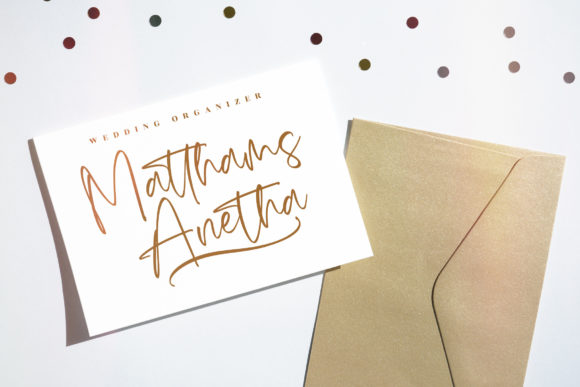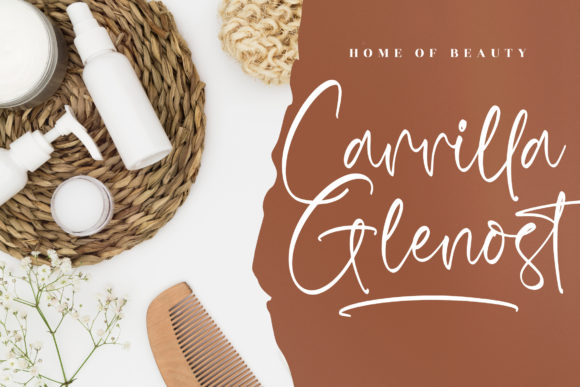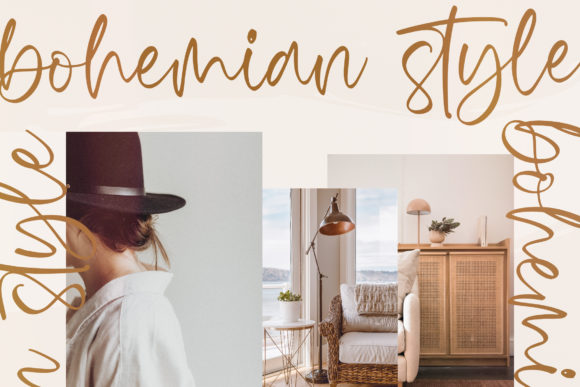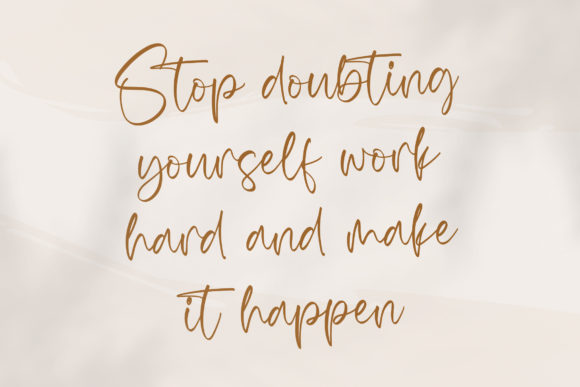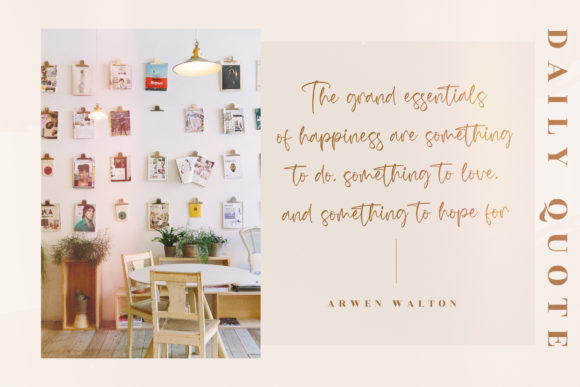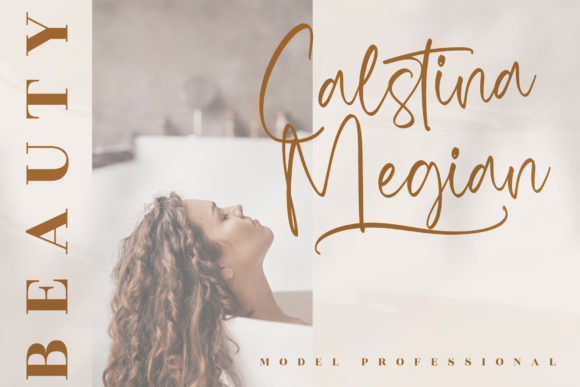
Introducing Camilla Mosteland Font: A Romantic and Sweet Calligraphy Typeface
Are you looking for a font that can add a touch of luxury and elegance to your design projects? Look no further than the Camilla Mosteland Font! This beautiful calligraphy typeface is perfect for designers and crafters who want to create stunning visuals that exude romance and sophistication.
What Makes Camilla Mosteland Font Special?
Camilla Mosteland Font is a romantic and sweet calligraphy typeface that features characters that dance along the baseline. This unique design element gives the font a playful and whimsical feel, making it perfect for a variety of design projects, from wedding invitations and branding materials to packaging and advertising.
One of the standout features of Camilla Mosteland Font is its PUA (Private Use Area) encoding. This means that you can access all of the amazing glyphs and ligatures with ease, giving you a wide range of creative possibilities. Whether you’re looking to add a touch of elegance to a logo or create a beautiful piece of typography, Camilla Mosteland Font has got you covered.
Perfect for Luxury Design Projects
Camilla Mosteland Font is the perfect choice for designers and crafters who want to add a touch of luxury to their design projects. The font’s elegant and refined design makes it ideal for high-end branding, packaging, and advertising. Whether you’re working on a luxury fashion brand, a high-end restaurant, or a bespoke jewelry company, Camilla Mosteland Font is sure to impress.
The font’s romantic and sweet feel also makes it perfect for wedding and event designers. Imagine creating beautiful wedding invitations, programs, and signage with this stunning font. Your clients are sure to love the elegant and sophisticated look that Camilla Mosteland Font brings to their special day.
Key Features of Camilla Mosteland Font
- Romantic and sweet calligraphy typeface: Camilla Mosteland Font features a beautiful, handwritten design that is perfect for adding a touch of elegance to your design projects.
- PUA encoded: With PUA encoding, you can access all of the amazing glyphs and ligatures with ease, giving you a wide range of creative possibilities.
- Characters that dance along the baseline: The font’s unique design element gives it a playful and whimsical feel, making it perfect for a variety of design projects.
- Luxury spark: Camilla Mosteland Font is perfect for designers and crafters who want to add a touch of luxury and elegance to their design projects.
Tips for Using Camilla Mosteland Font
- Pair it with a bold font: Camilla Mosteland Font is perfect for headlines and titles. Pair it with a bold font for a striking contrast.
- Use it for branding and packaging: The font’s elegant and refined design makes it ideal for high-end branding and packaging.
- Experiment with glyphs and ligatures: With PUA encoding, you can access all of the amazing glyphs and ligatures. Experiment with different combinations to create unique and interesting typography.